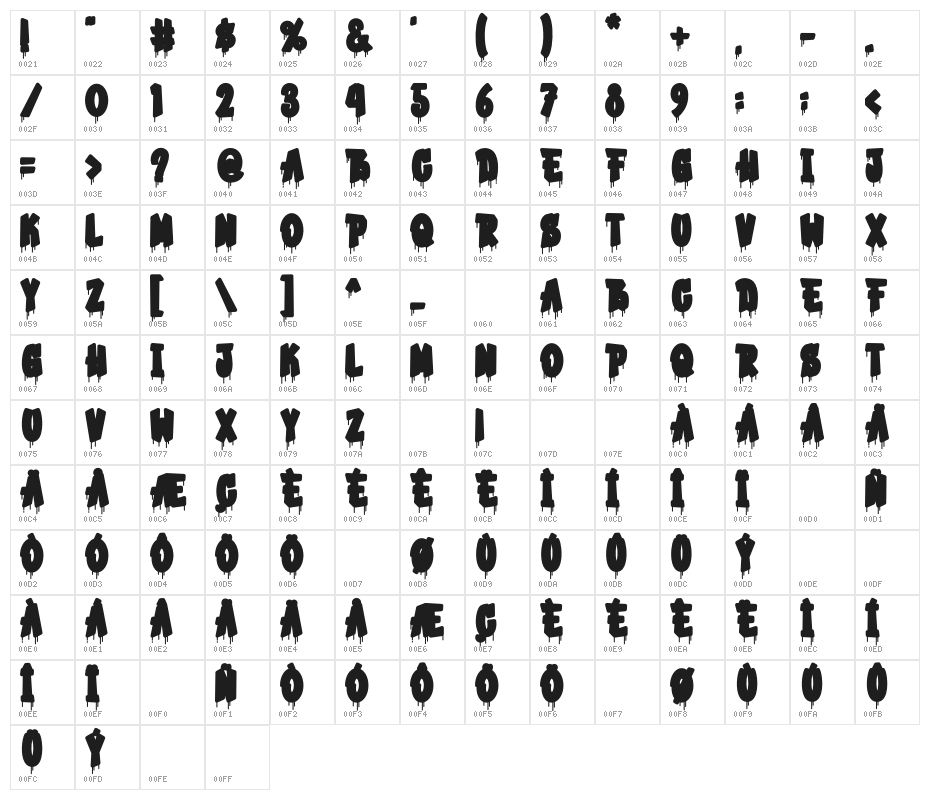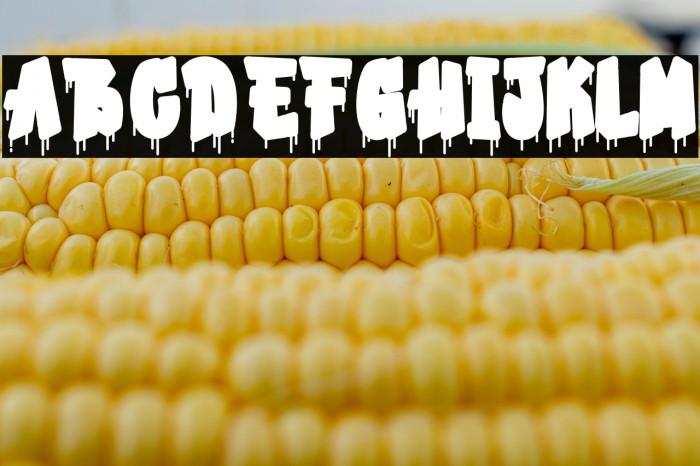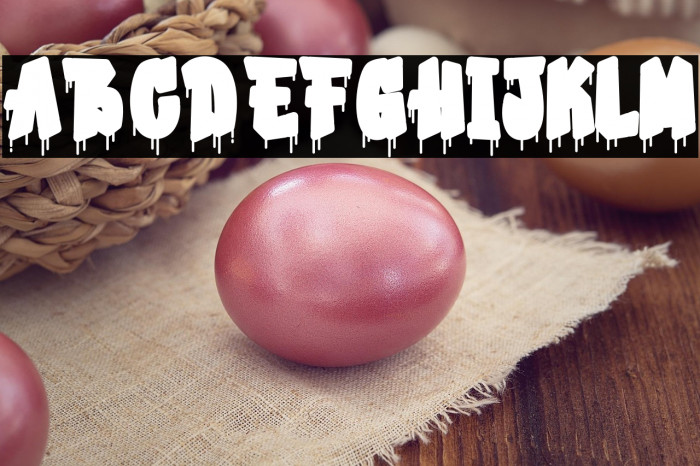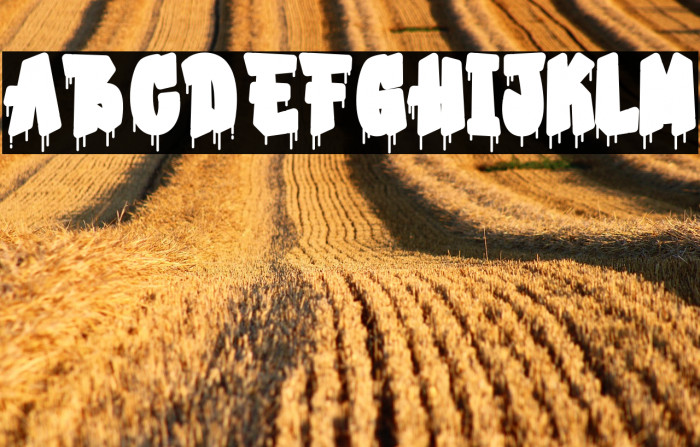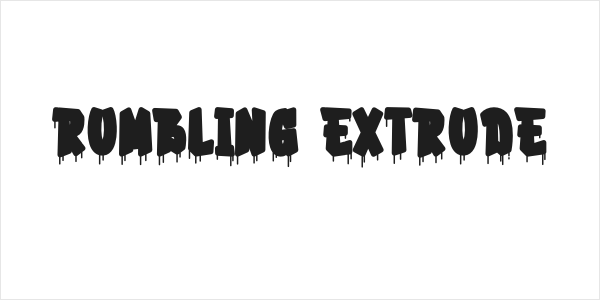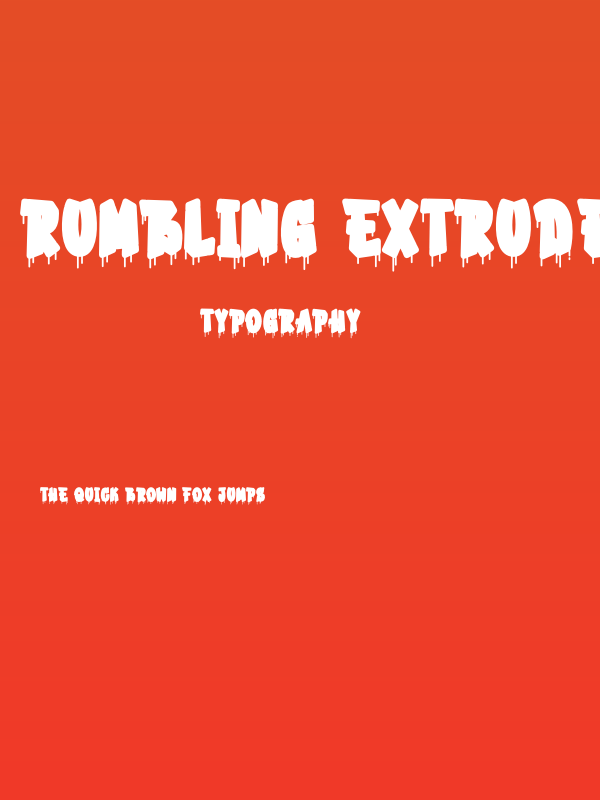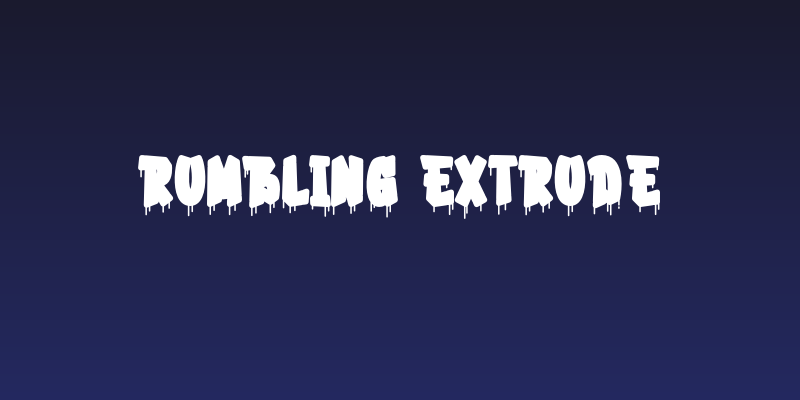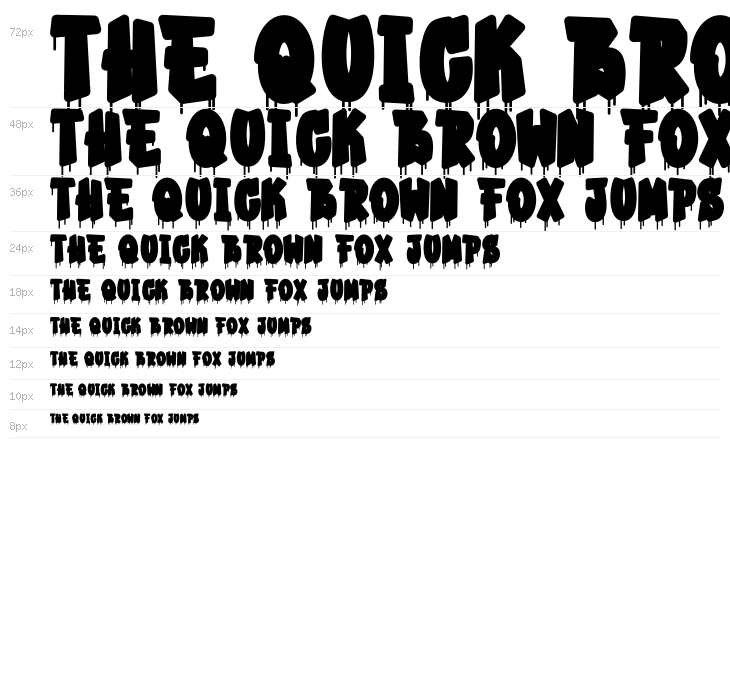
Rumbling Extrude Font
Rumbling Extrude Description
This font features a bold, dripping design that gives it a unique, graffiti-like appearance. The characters are thick and heavy, with an extruded look that adds depth and dimension. The dripping effect at the bottom of each character enhances its edgy and urban style, making it stand out. The font is highly decorative, with a playful yet rebellious vibe, suitable for projects that require a strong visual impact. Its boldness and distinctive style make it ideal for eye-catching headlines or artistic designs.
Proposed ProjectsIdeal for street art designs, music album covers, event posters, and urban-themed branding.